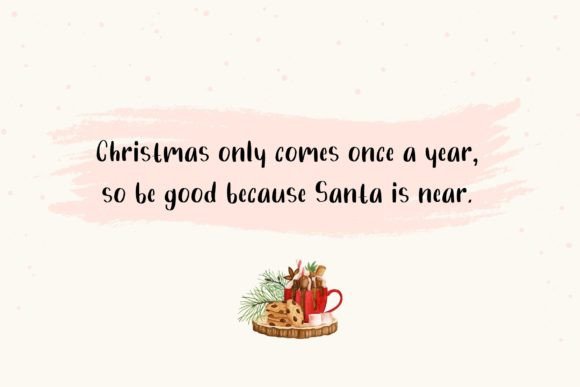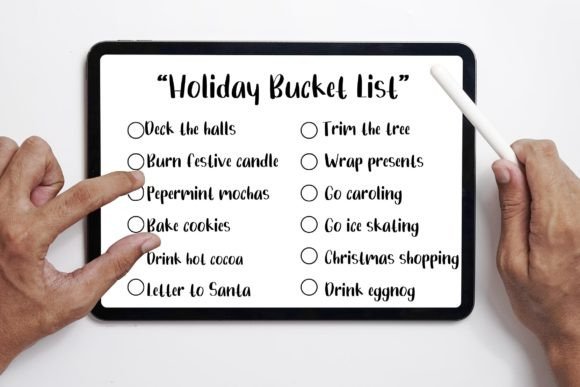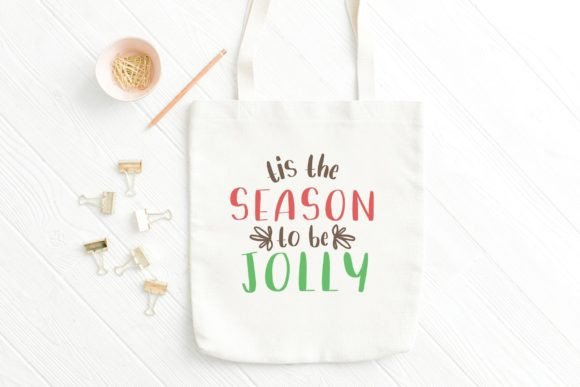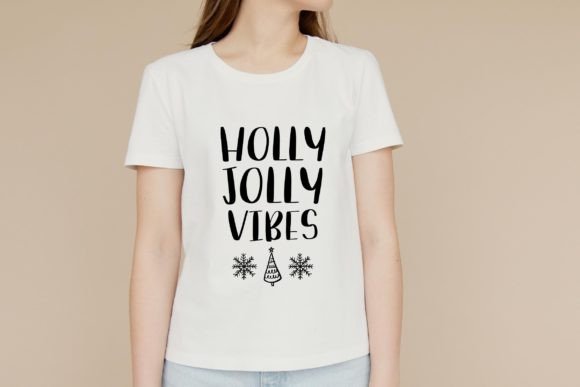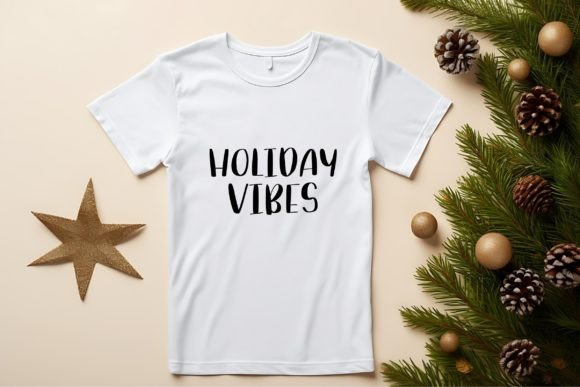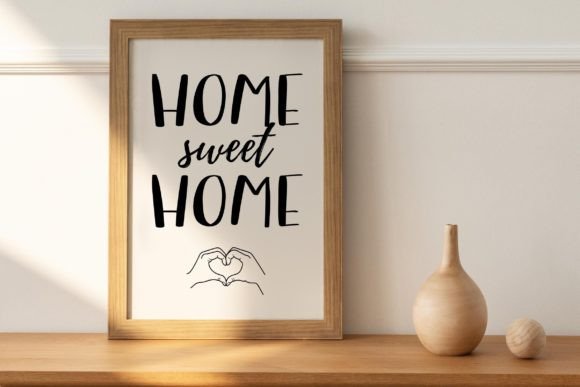
Introduction to Papermint Mochas Font
Have you ever been working on a creative project, and suddenly, the perfect font pops into your mind, elevating your design from ordinary to extraordinary? For me, it was one of those magical moments when I stumbled upon the enchanting “Papermint Mochas Font.” Its whimsical charm instantly captured my attention, and I knew I had to share it with fellow designers.
This delightful handwritten font is a treasure trove for creatives, offering a unique blend of playfulness and sophistication. With its high-quality design, “Papermint Mochas Font” is the perfect addition to any project, whether you’re working on digital products, crafting planners, or designing wall art. Its transparent background and free download make it an invaluable design resource, allowing you to infuse your creative projects with a sense of character and whimsy.
Key Features of Papermint Mochas Font
- Unique Script Font Design: The Papermint Mochas Font features a unique, handwritten script design that adds a touch of elegance and sophistication to any creative project.
- Transparent Background: This font features a transparent background, allowing for seamless integration with any background image or color, making it a valuable design resource.
- Perfect for Creative Projects: This font is ideal for creative projects, including wedding invitations, greeting cards, and other design applications that require a touch of whimsy and charm.
Honest Review: Papermint Mochas Font
I recently stumbled upon the Papermint Mochas Font, and I’m excited to share my thoughts with you. As a designer, I’m always on the lookout for high-quality design resources that can elevate my creative projects.
- The Papermint Mochas Font is a beautiful, modern script font that’s perfect for adding a touch of elegance to your designs.
- The font is highly versatile and can be used for a wide range of creative projects, from branding and marketing materials to digital products and print materials.
- The font’s transparent background makes it easy to customize and combine with other design elements.
Overall, I’m really impressed with the Papermint Mochas Font. It’s a high-quality, creative resource that’s perfect for designers looking to add a touch of elegance to their projects. While it may have some limitations, I think it’s a fantastic addition to any design arsenal.
The Papermint Mochas Font is a high-quality design resource ideal for creative projects. With its unique style and transparent background, it’s perfect for adding a touch of elegance to your designs.